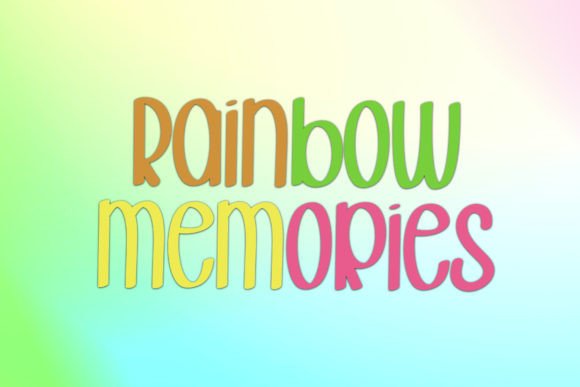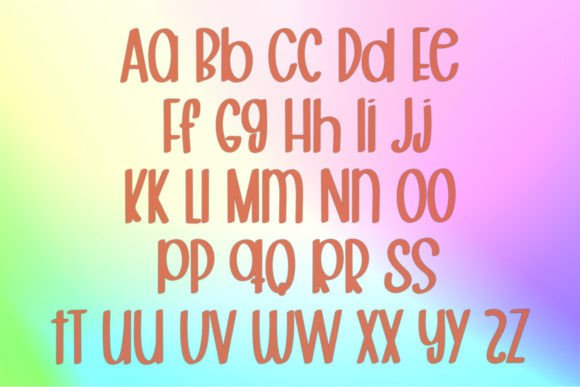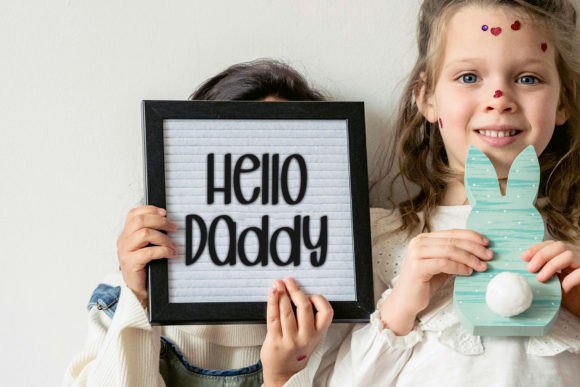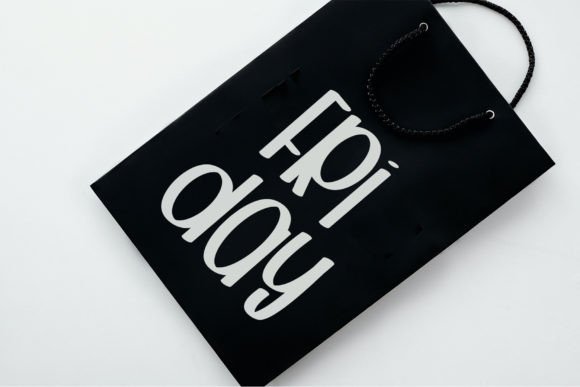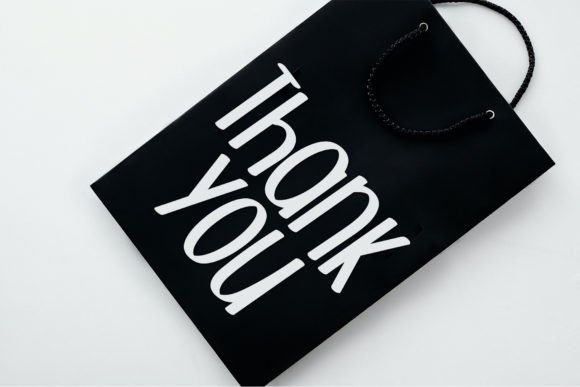
Introduction to Overture Font
As a designer, there’s nothing quite like the thrill of discovering a new font that sparks creativity and sets the tone for a project. For me, that moment came when I stumbled upon the charming Overture Font. Its playful, handwritten style is like a breath of fresh air, perfect for injecting a warm and friendly feel into any design.
Whether you’re working on a personal project, creating social media graphics, or designing invitations, the Overture Font is an invaluable resource that adds a delightful, whimsical touch. Its high-quality design ensures a professional look, while its transparent background makes it easy to integrate into any design. And the best part? It’s a free download, making it an accessible design resource for designers of all levels.
With its rounded, playful strokes, the Overture Font is a versatile choice that’s sure to elevate your designs and leave a lasting impression on your audience.
Overture Font
- High-quality design resource ideal for creative projects, offering a professional and sophisticated look.
- Resolution-independent design ensures crisp and clear typography at any scale, making it perfect for use in high-resolution designs.
- Unique characteristics include a clean and modern aesthetic, making it an excellent choice for branding, logos, and other creative projects.
Honest Review: Overture Font
As a designer, I’m always on the lookout for high-quality design resources to enhance my creative projects. Recently, I stumbled upon the Overture Font, and I’m excited to share my honest review with you.
- ✨ The Overture Font boasts a clean and elegant design, perfect for a variety of creative projects.
However, I do have some limitations to mention:
- ⚠️ The Overture Font may not be suitable for projects that require a bold or dramatic font style.
Overall, I’m impressed with the Overture Font’s clean design and versatility. While it may not be perfect for every project, it’s definitely a valuable addition to any design library. With a little creativity, the Overture Font can elevate your designs and help you achieve your creative vision.
Overture Font
The Overture Font is a high-quality design resource perfect for any creative project. With its transparent background, this font offers endless possibilities for customization and design flexibility.
Tips for Getting the Most Out of Overture Font
Experiment with different font sizes, colors, and combinations to achieve a unique design. Use the font in conjunction with other design resources, such as images and icons, to create a cohesive and engaging visual identity.
The Overture Font is ideal for use in logos, branding materials, and other visual identity elements. It’s also perfect for creating graphics, infographics, and other visual aids for presentations and reports.